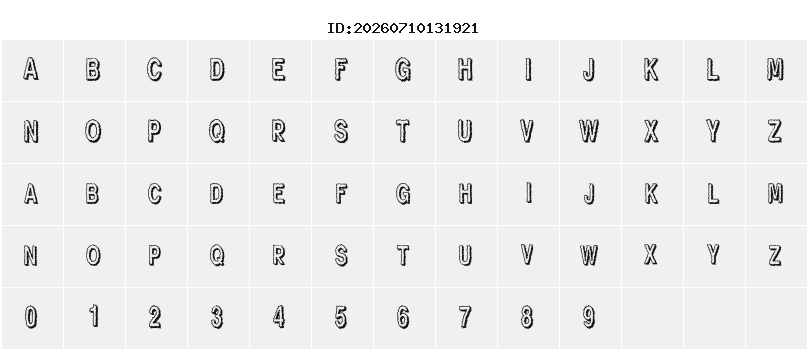
• Font Name: Fear
• Full Font Name: Fear
• PostScript Name: Fear
About Fear.ttf
Fear.ttf is a modern, elegant sans-serif font designed for ultimate readability and visual harmony. Perfect for branding, headlines, web design, and print materials.